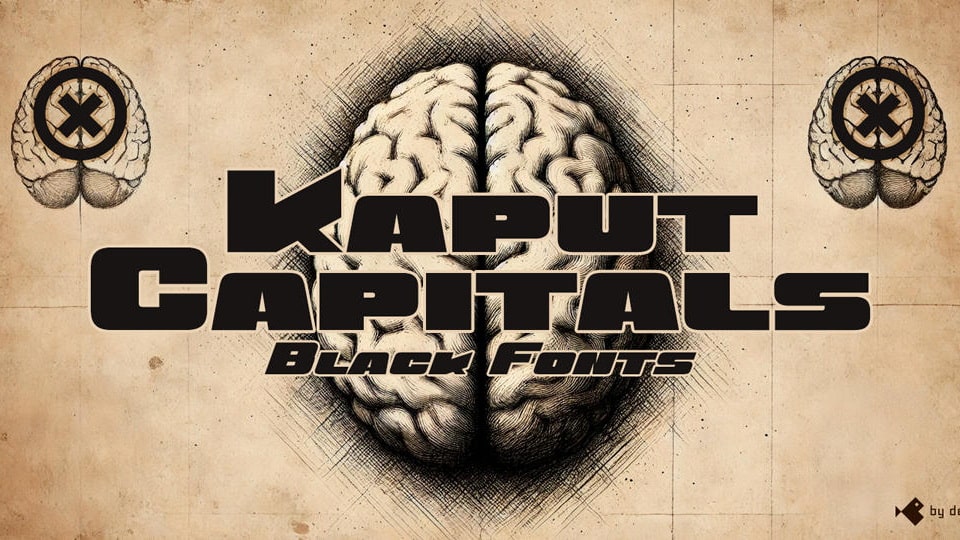
Download Kaput Black font,, a unique, heavy uppercase typeface, perfect to create great titles and high-impact visual communication.
Designer: Fernando Haro